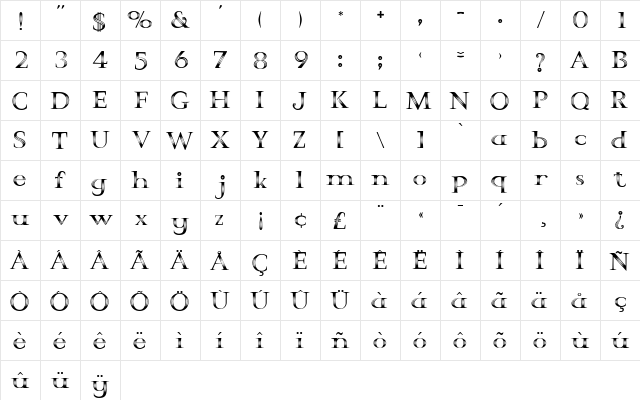
Crystal Palace Regular
Design Context for Crystal Palace Typeface
Crystal Palace is a composed and adaptable typeface that performs quietly and consistently across a wide range of design contexts.